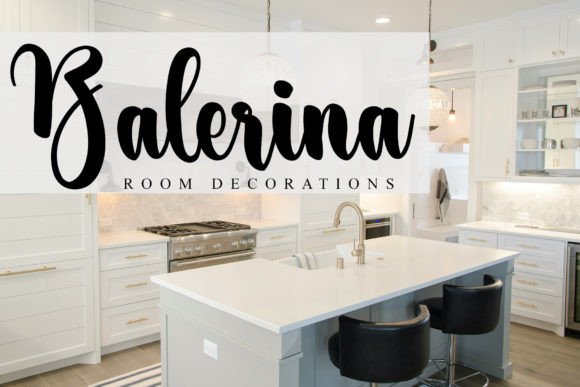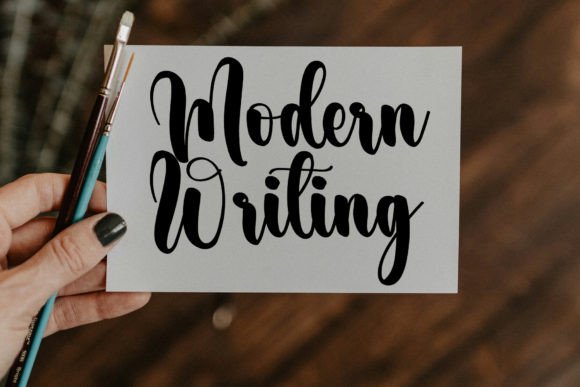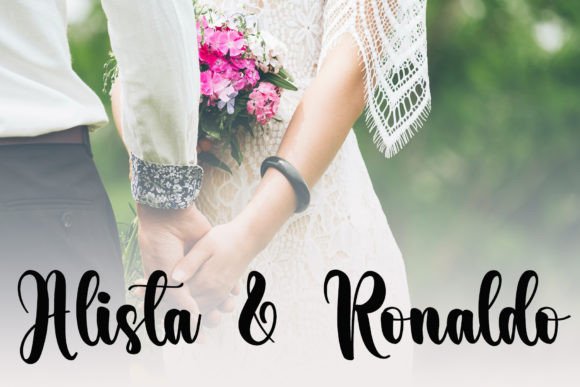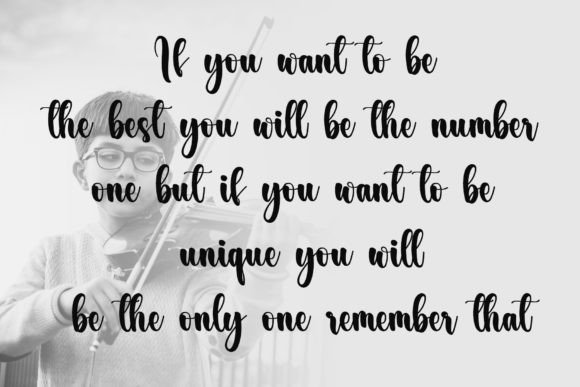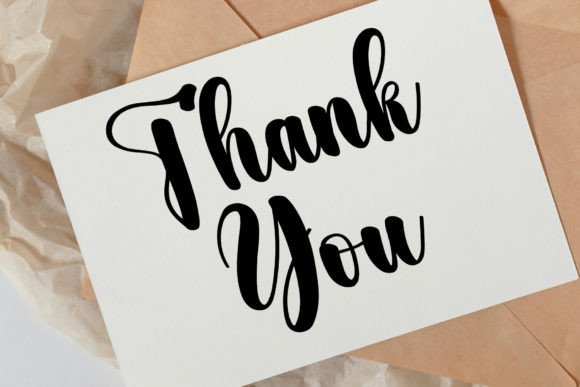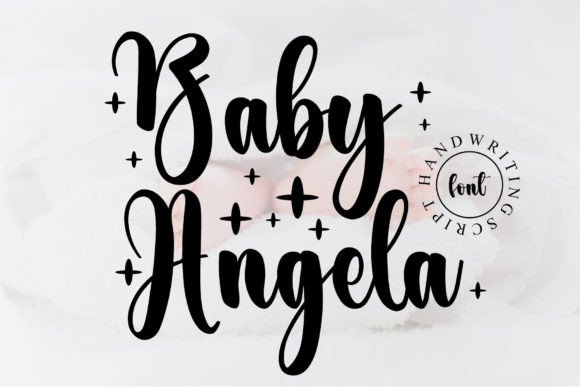
Baby Angela Font: Elevate Your Designs with Elegance
Baby Angela is a stunning handwritten font that has captured the hearts of designers and crafters alike. With its unique blend of elegance and playfulness, this magical font is perfect for adding a touch of sophistication to your creative projects. Whether you’re looking for fonts for Instagram, calligraphy scripts for DIY projects, or simply want to elevate your design game, Baby Angela Font is the perfect choice.
The Story Behind Baby Angela Font
Baby Angela Font is a carefully crafted handwritten font, designed to bring a touch of whimsy and charm to your designs. The font’s creator aimed to develop a typeface that would be both elegant and approachable, making it suitable for a wide range of applications. From social media graphics to craft projects, Baby Angela Font is sure to impress.
Key Features of Baby Angela Font
- Magical Handwritten Style: Baby Angela Font boasts a beautiful, handwritten style that adds a personal touch to your designs.
- Elegant and Playful: This font strikes the perfect balance between elegance and playfulness, making it suitable for a variety of creative projects.
- Instagram-Ready: Use Baby Angela Font to create stunning social media graphics that will make your followers swoon.
- DIY Project Perfect: Add a touch of handmade charm to your craft projects with this beautiful calligraphy script.
Why Choose Baby Angela Font?
With so many fonts available, why choose Baby Angela Font? Here are just a few reasons why designers and crafters love this magical font:
- Unique and Versatile: Baby Angela Font is perfect for a wide range of applications, from digital designs to handmade crafts.
- Ease of Use: This font is easy to read and works beautifully in both digital and print formats.
- Timeless Appeal: The elegant, handwritten style of Baby Angela Font ensures that your designs will never go out of style.
Using Baby Angela Font in Your Designs
So, how can you use Baby Angela Font in your designs? Here are a few ideas to get you started:
- Instagram Graphics: Create stunning social media graphics with Baby Angela Font, perfect for posting on Instagram, Facebook, and more.
- DIY Projects: Add a touch of handmade charm to your craft projects, such as handmade cards, gift tags, and more.
- Branding and Packaging: Use Baby Angela Font to create beautiful branding and packaging materials, such as logos, labels, and more.
Tips and Tricks for Working with Baby Angela Font
Here are a few tips and tricks for getting the most out of Baby Angela Font:
- Experiment with Colors: Try pairing Baby Angela Font with different colors and textures to add depth and interest to your designs.
- Play with Size and Scale: Experiment with different font sizes and scales to create visual interest and hierarchy in your designs.
- Mix and Match Fonts: Try pairing Baby Angela Font with other fonts to create a unique and eye-catching combination.